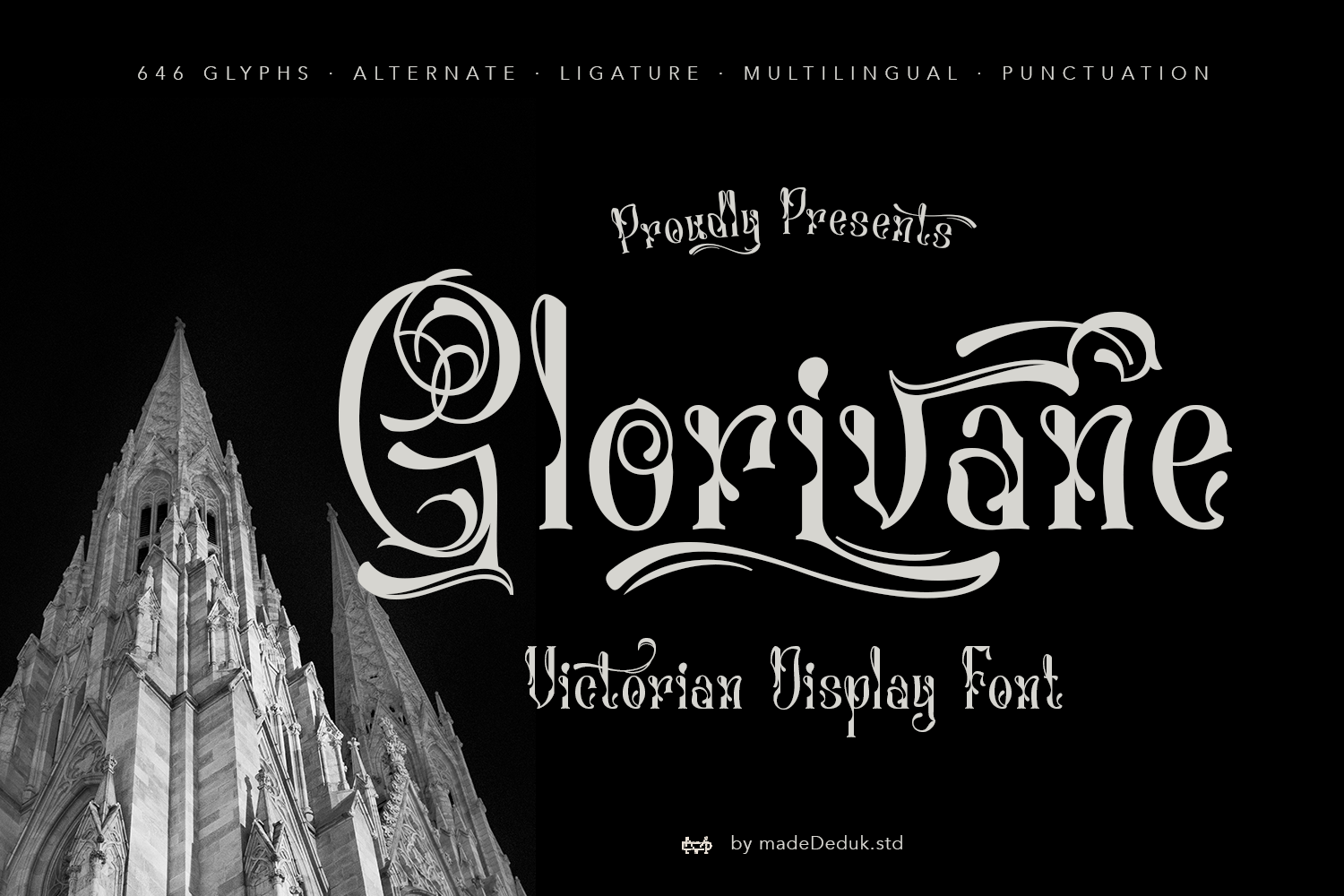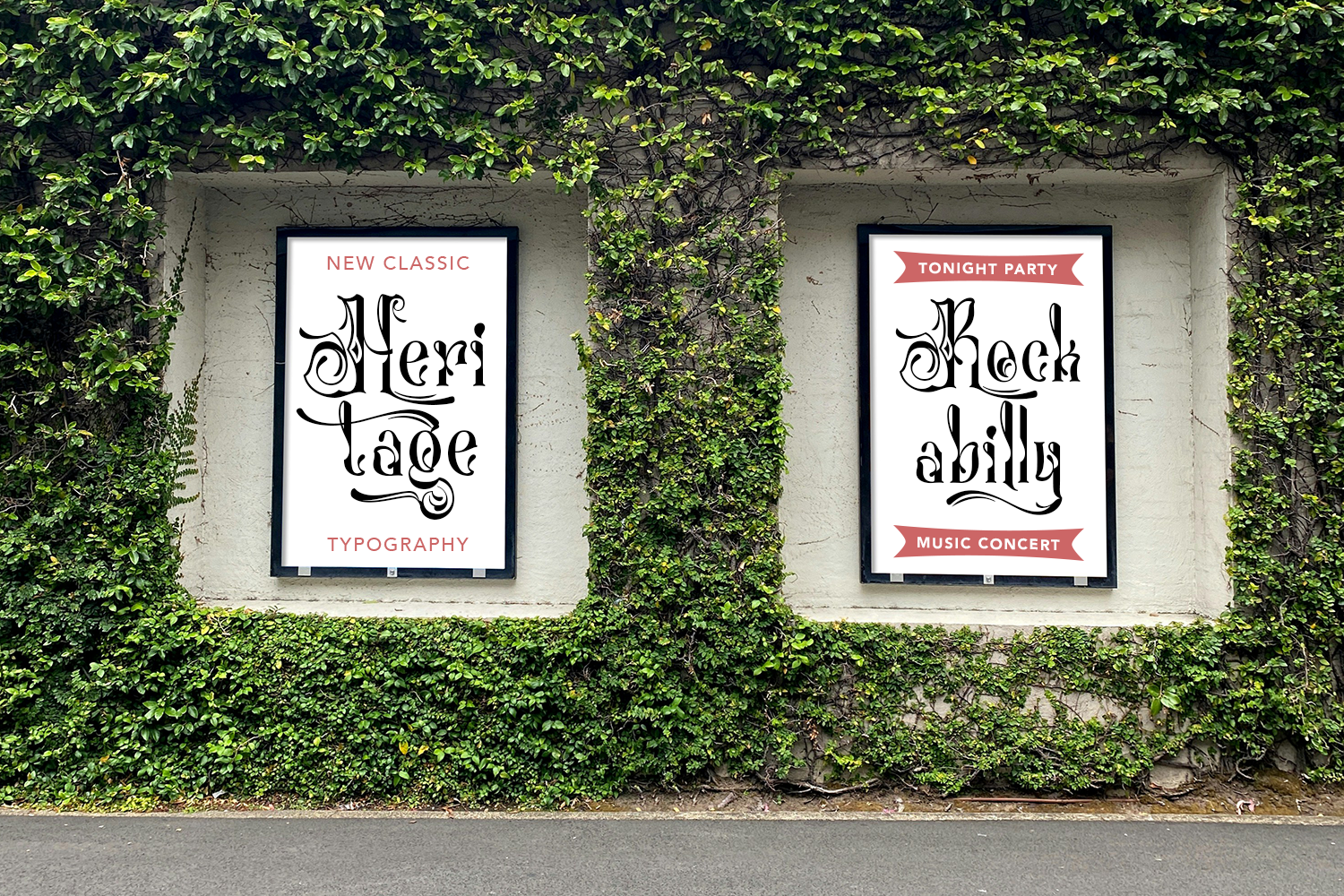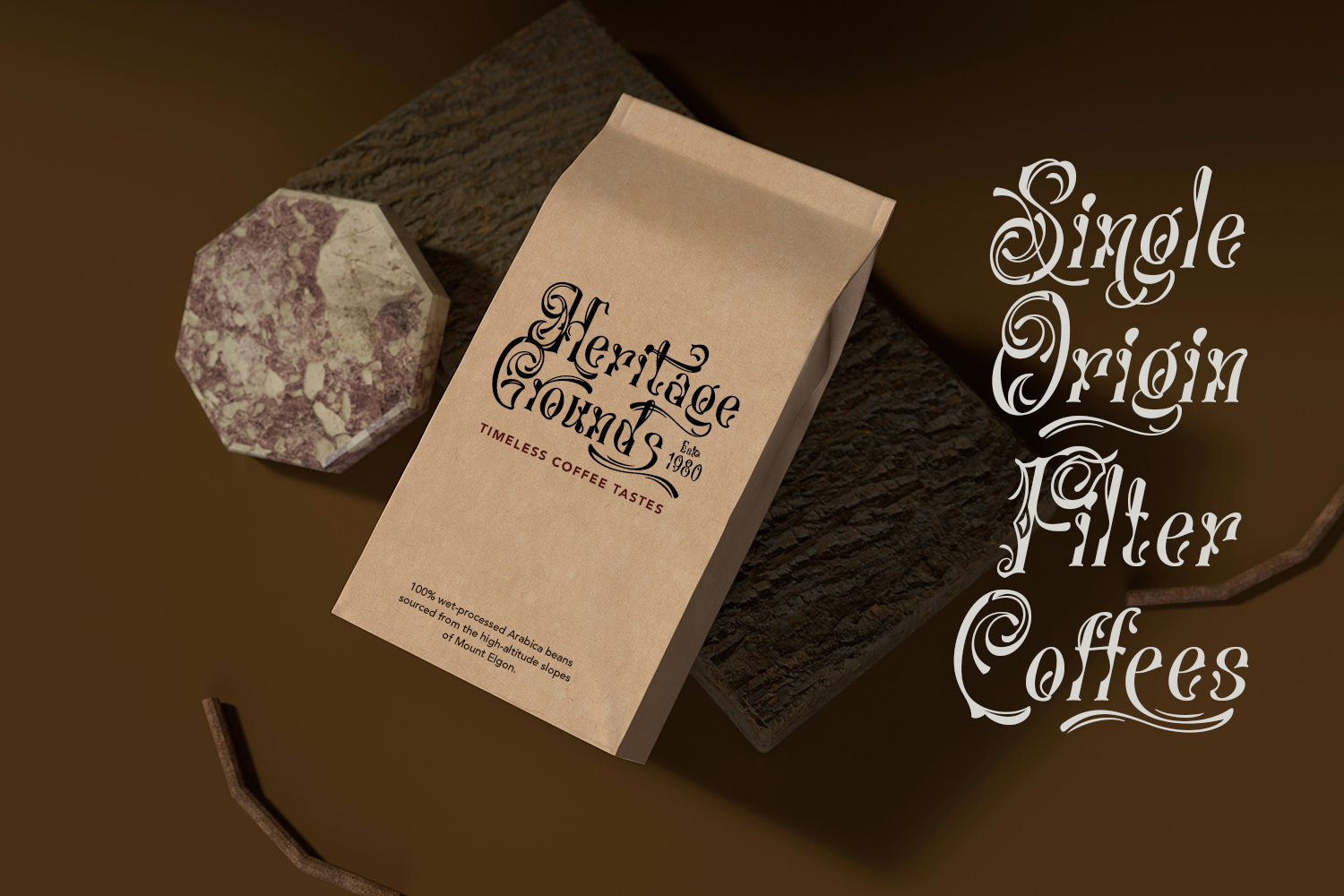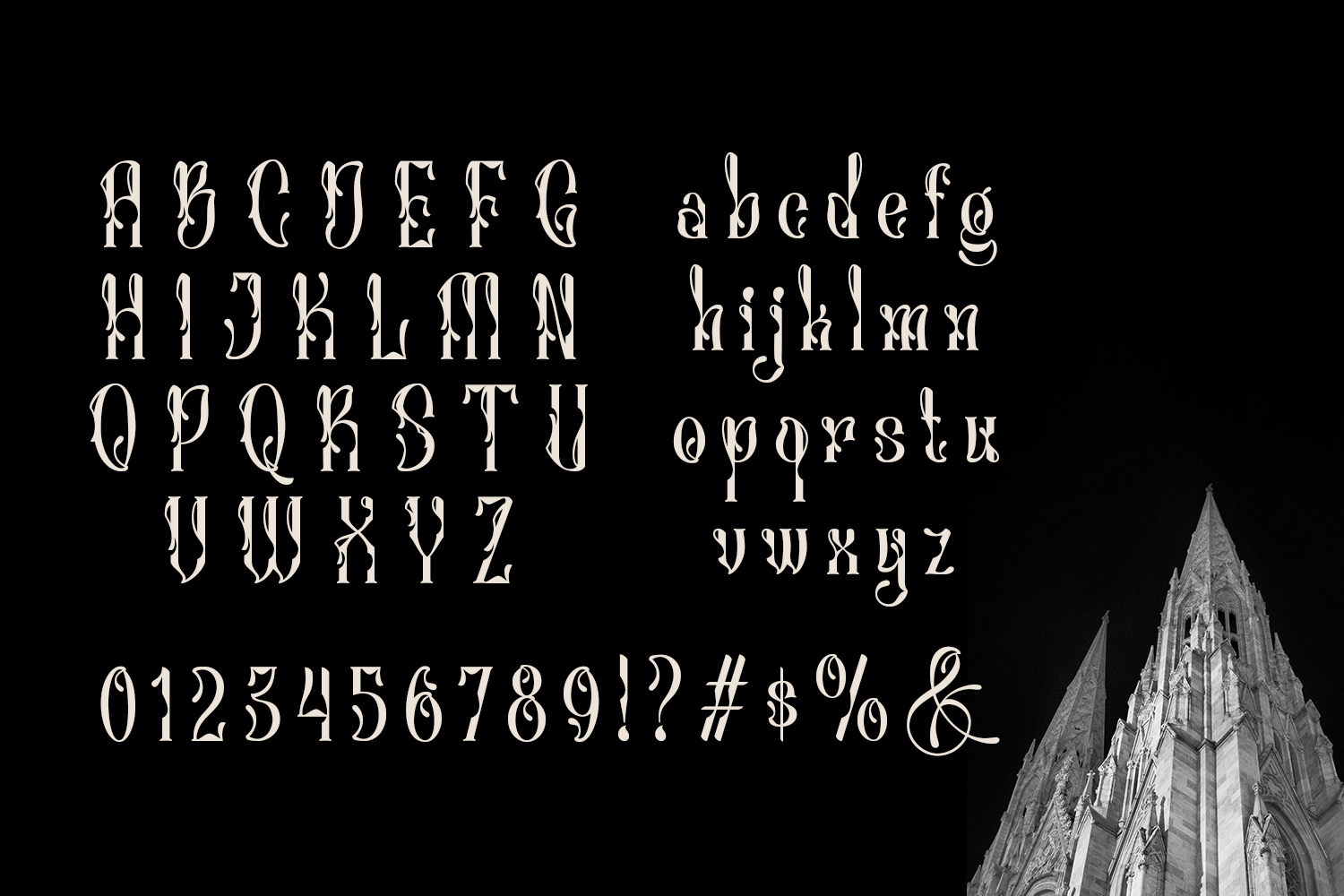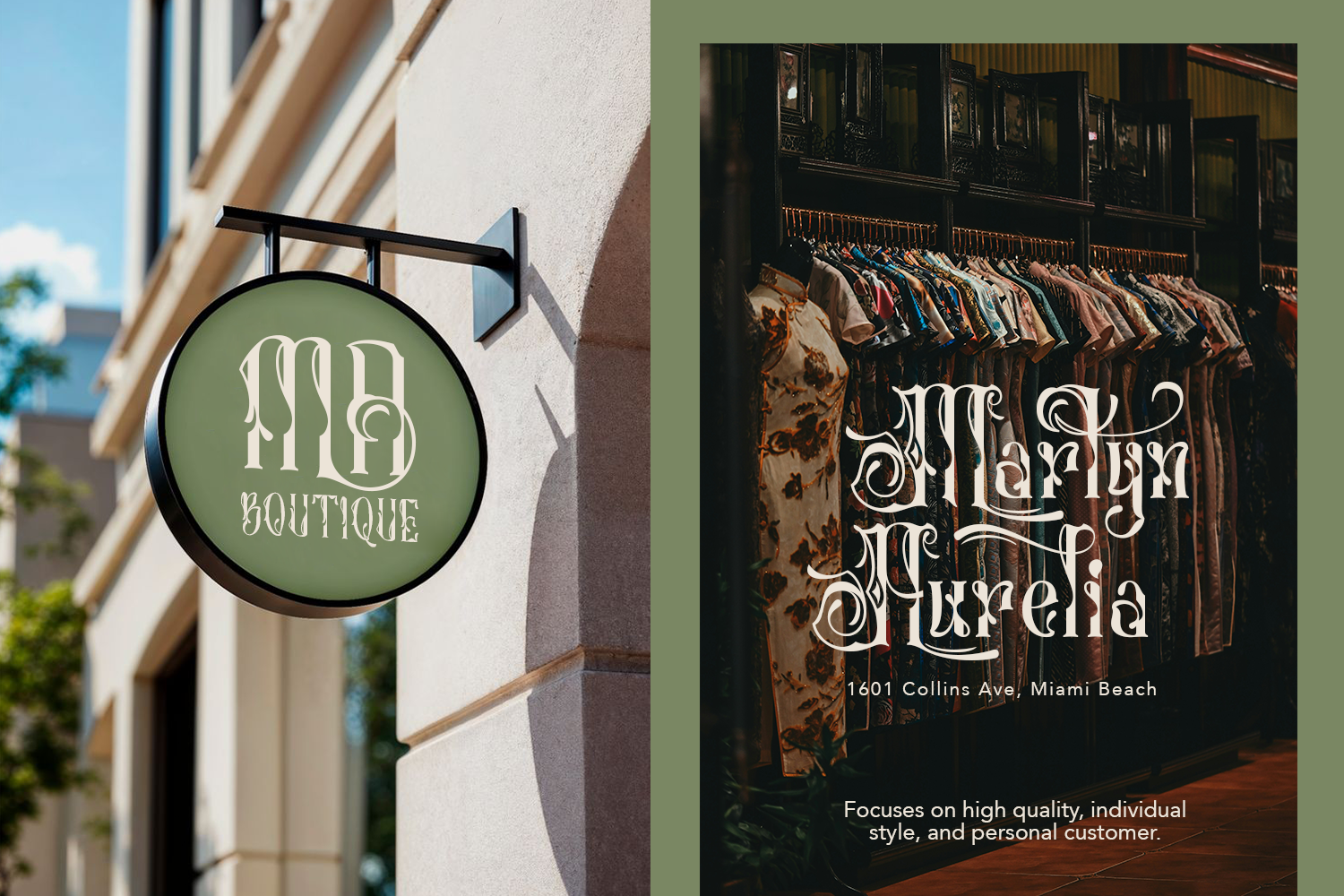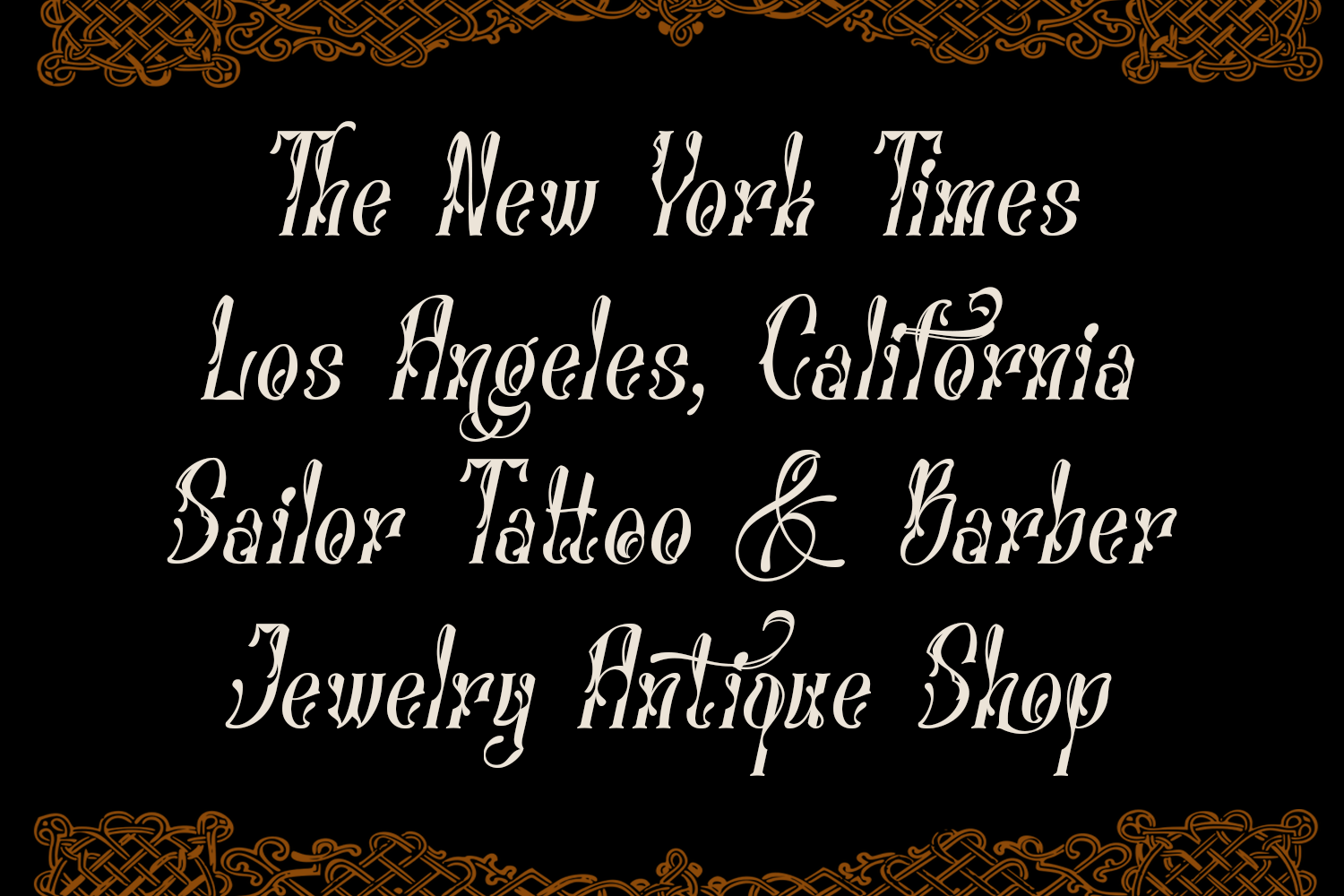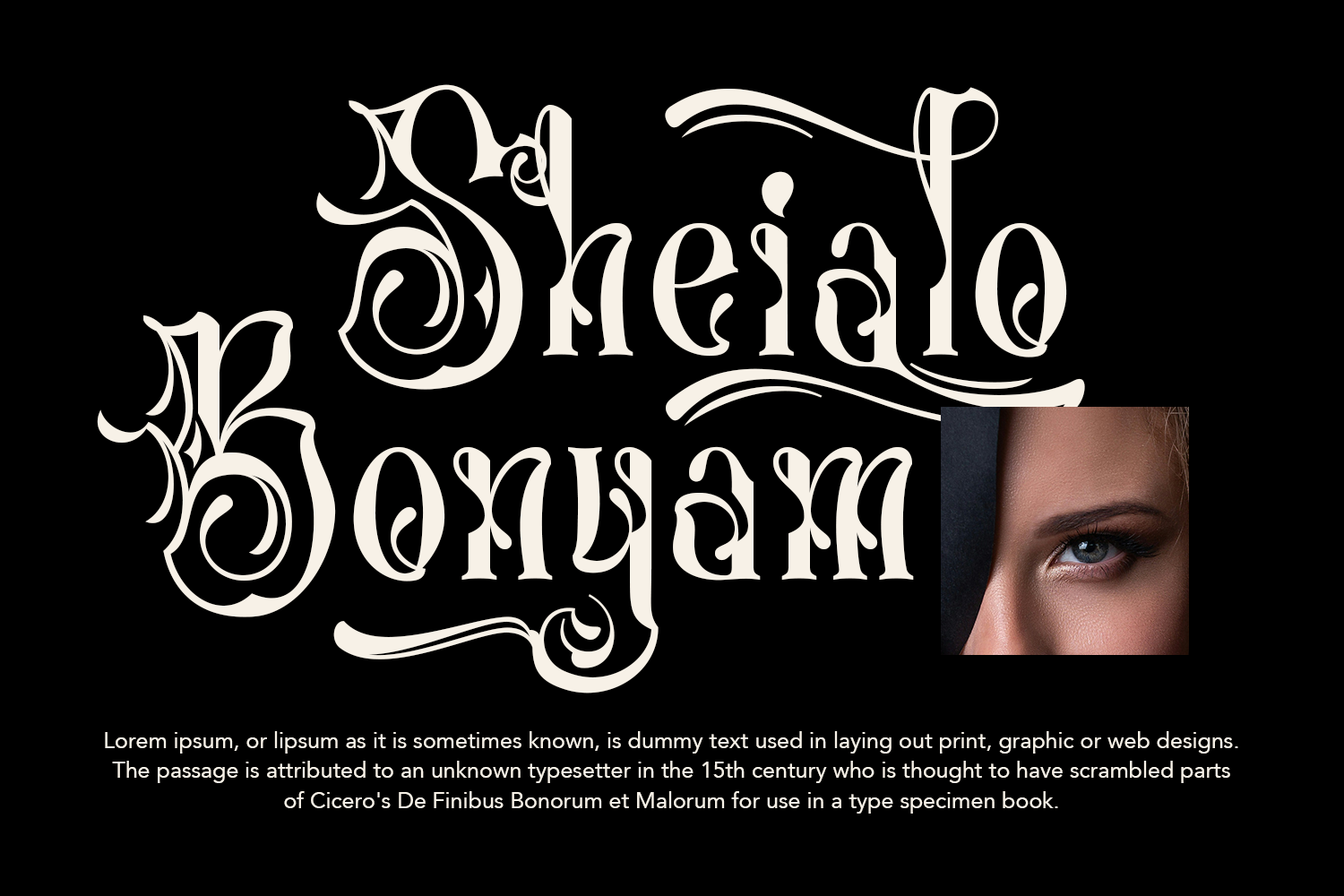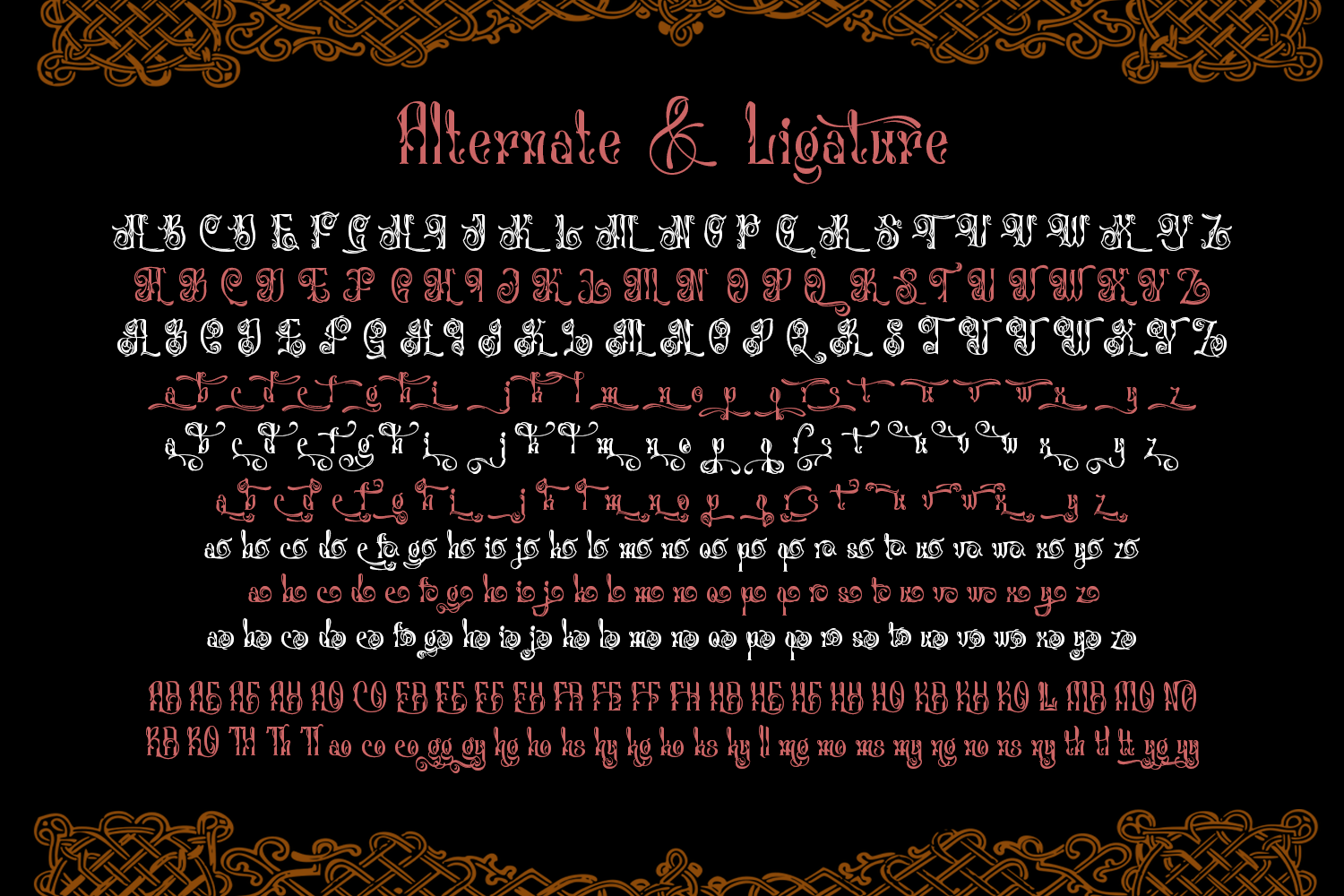
Introducing Glorivane, designed with a grand, classic aesthetic, this Victorian display font brings the elegance of a bygone era directly to your visual work. Featuring artistic swashes, rich ornamentation, and dramatic capital letters, it is ideal for design projects that demand a sense of luxury, high artistic value, and strong character. It is perfectly suited for premium product branding, packaging labels for whisky bottle, perfumes, or cigars, vintage posters, book covers, and logos with a Gothic or Victorian flair.
This Victorian display font blends the beauty of classic calligraphy with intricate ornamental details. Exuding a character that is both commanding and graceful, it is specially designed to make your headlines, logos, and visual identities stand out while evoking a sense of nostalgia.